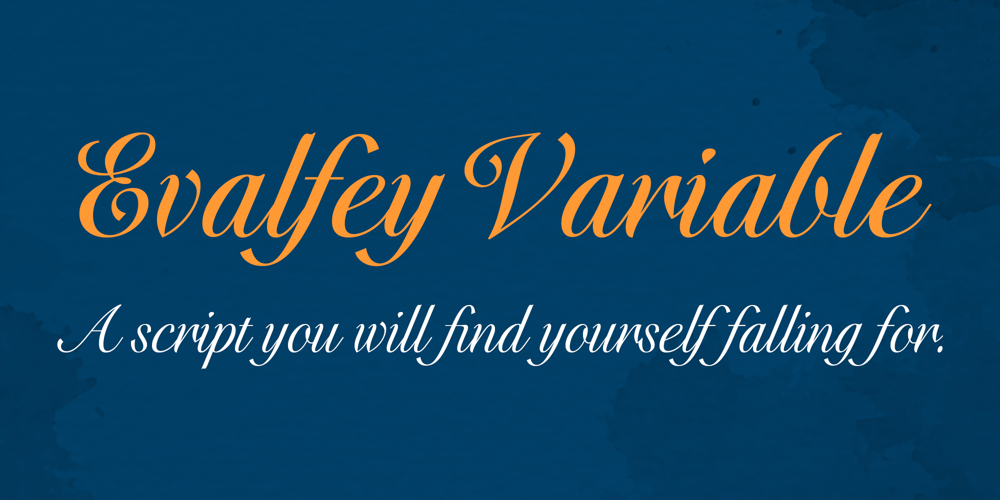
Evalfey Variable
Evalfey Variable font
Evalfey Variable Font Family was designed by Jeremy Dooley and published by insigne. Evalfey Variable contains 1 styles and family package options. Introducing Evalfey— a script that captivates at first glance. With its refined and polished demeanor, Evalfey invites you into a world of elegance, yet its simplicity makes it incredibly accessible. The elevated x-height, distinctive flag-like terminals, and the fluidity of its sweeping strokes imbue the font with a harmonious and flowing quality, elevating your designs to new heights.Ideal for wedding invitations and more, Evalfey Script exudes a romantic allure with its brushed look and pronounced ‘nuptial’ ambiance. Whether it’s for save-the-date cards, thank-you notes, or any cherished wedding memorabilia, Evalfey is the epitome of sophistication and grace.Stand out from the ordinary with Evalfey— a font that marries simplicity with regality, making it the quintessential choice for weddings that aspire to be remembered. The lofty x-height, elegant terminals, and rhythmic strokes render Evalfey a crown jewel in typographic design.Elevate your special moments with Evalfey, a harmonious blend of elegance and simplicity, making it your go-to font for wedding invitations, announcement cards, and any keepsake that calls for a touch of the extraordinary.Production assistance from Lucas Azevedo.